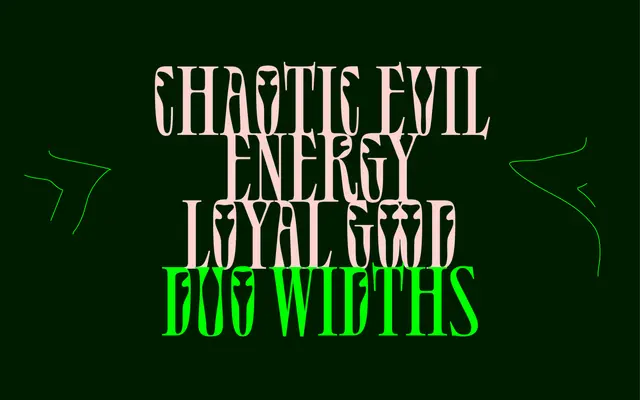
NaN · Jérémy Landes · 2021
A three-part display family by Jérémy Landes rooted in late Art Nouveau lettering, carrying 280 ligatures in the Titling sub-family and extending through a condensed gothic Sans and a text-weight workhorse, all covering Latin and Cyrillic.
The family splits into three distinct but related sub-families: Success Titling, which leans heavily into ornamental ligatures including multi-width variants that mix compressed and wide glyphs for a hand-lettering quality; Success Sans, which takes the same organic curves onto a condensed gothic structure ranging from lace-like Light to a steampunk-inflected Black; and Success Text, a tuned-down version of the titling DNA suited to long reading at small sizes. Latin coverage spans 317 languages and Cyrillic 44. NaN donate 15% of revenue from the family to ClientEarth.
A three-subfamily display system drawing from late Art Nouveau sources such as De Vinne and Louis Jou, with an ornate titling sub-family packed with ligatures and alternates. The Display classification is appropriate given the titling-first orientation of the family, though Success Text extends usability to body sizes.